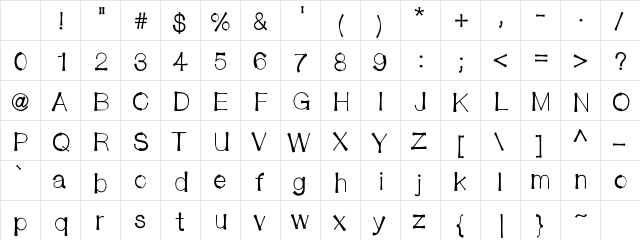
Complete BendyStraw Medium glyph index. Displaying only characters natively supported by BendyStraw Medium font.
BendyStraw is a composed and adaptable typeface that performs quietly and consistently across a wide range of design contexts.